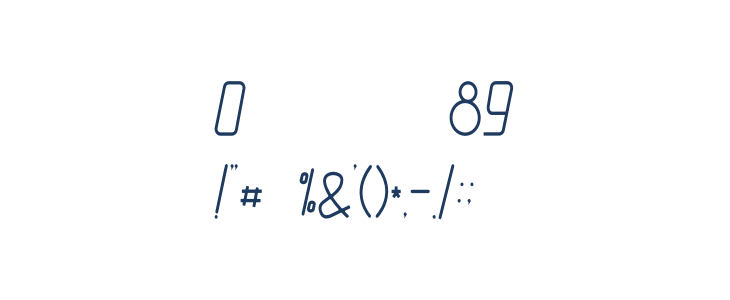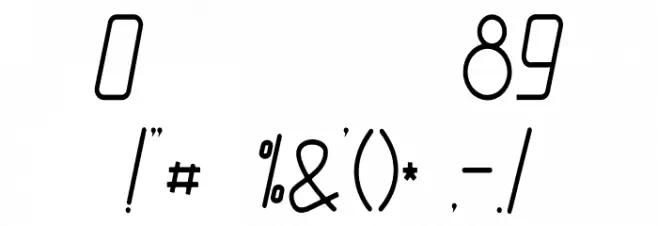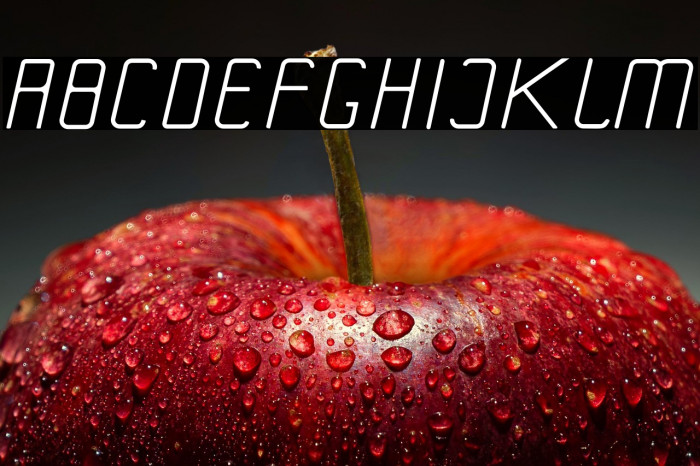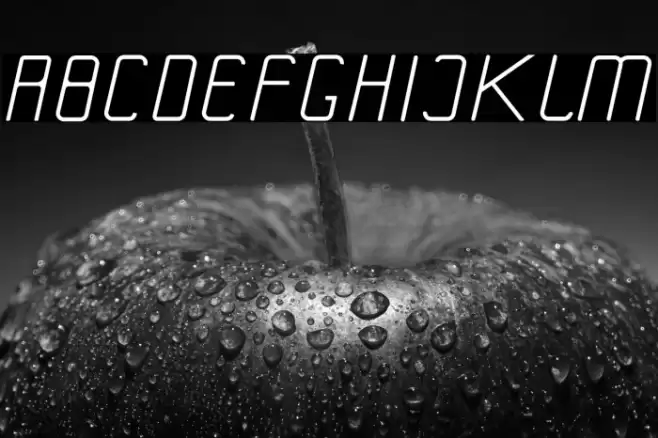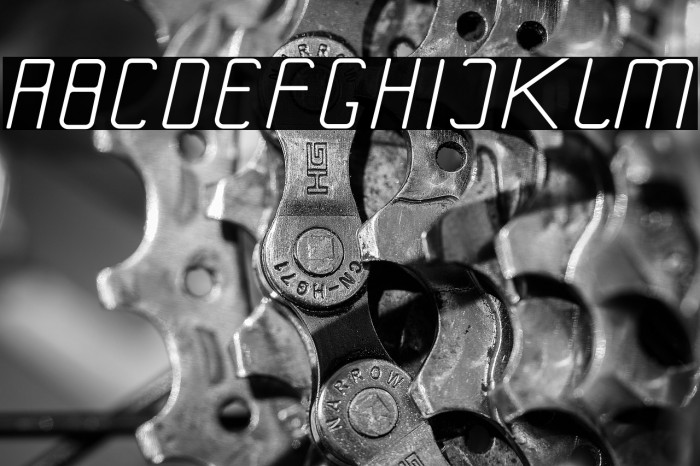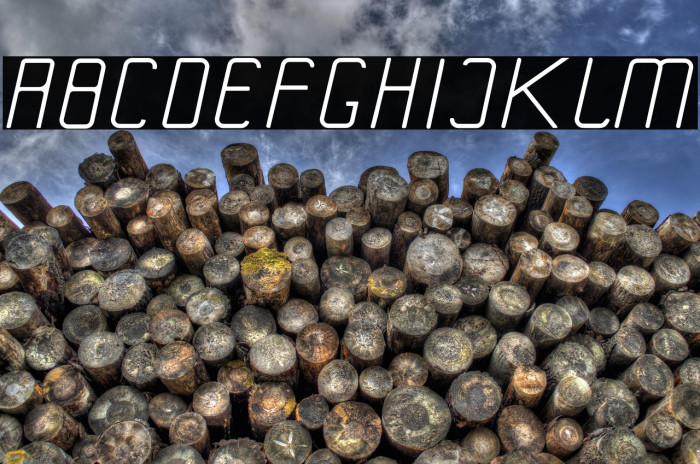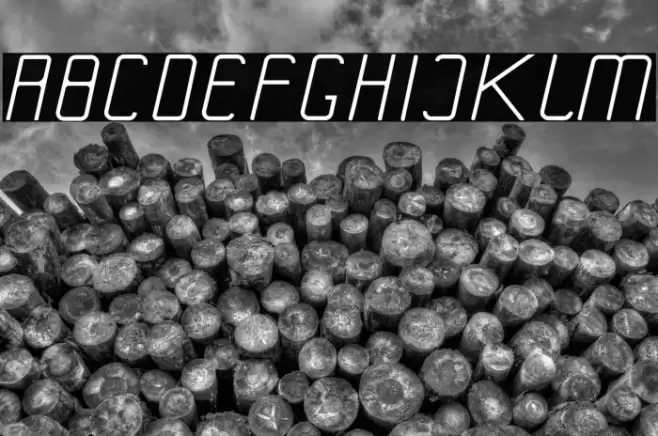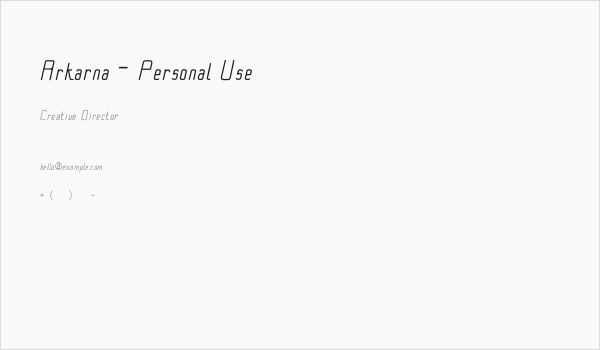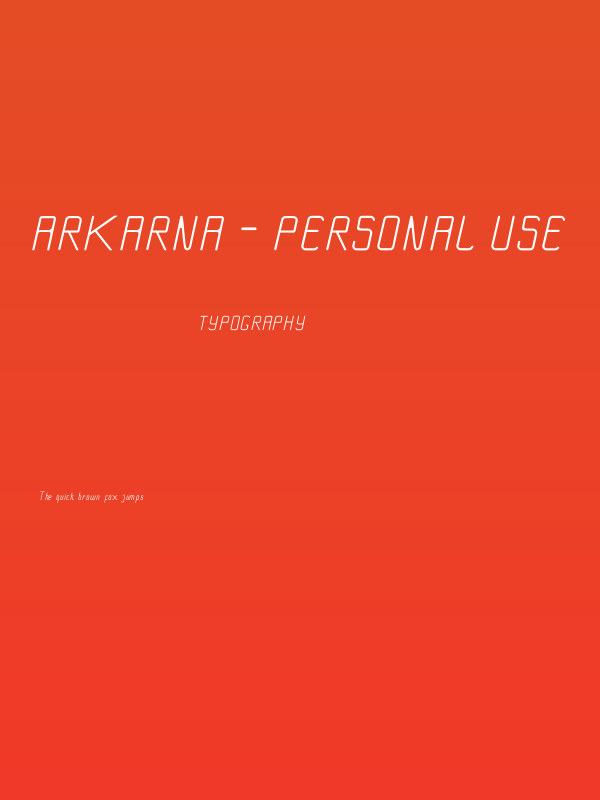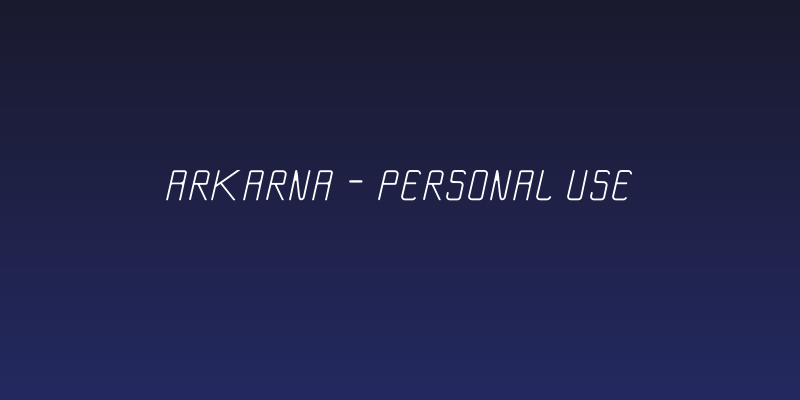
Arkarna - Personal Use Font
This font features a modern, geometric design with a sleek and streamlined appearance. The characters are slightly condensed, with a consistent stroke width that gives it a uniform look. The uppercase letters have a futuristic feel, with angular lines and rounded corners that create a sense of movement. The lowercase letters maintain the same geometric style, providing a cohesive look across both cases. The numerals are bold and clear, making them easily readable. Special characters are designed to match the overall aesthetic, ensuring a seamless integration with the rest of the font.
| Proposed Projects | Ideal for technology branding, modern advertising, and futuristic design projects. |